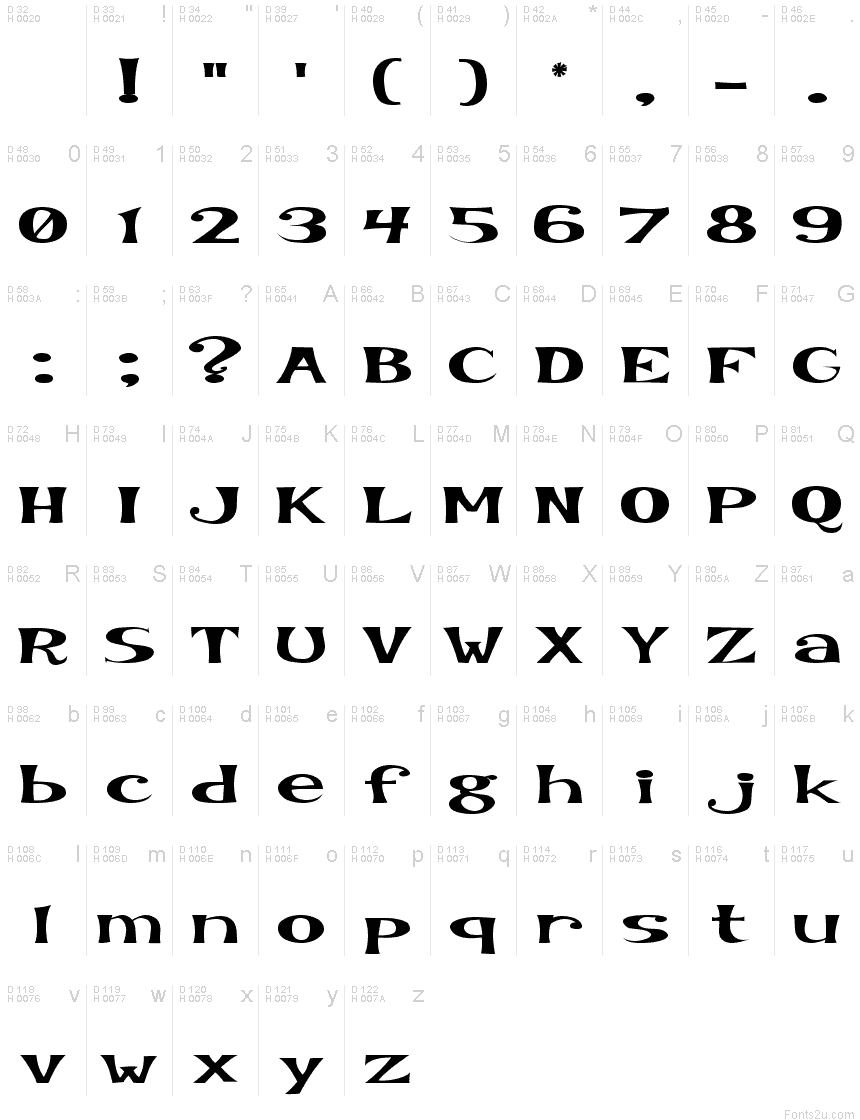
KookySquat
KookySquat font by Financial Peril Publishing & Design is a free comic font with a wonderfully offbeat swagger. Tall, flared strokes lean and stretch as if they’re mid-stride, while chunky curves keep everything playful and approachable. The letters feel hand-drawn yet crisp, with a subtle theatrical flair that makes even a single word look like a title card.
Using KookySquat, headlines snap to attention on posters, kids’ book covers, party invitations, zines, comic panels, and quirky product packaging. The energetic rhythm and exaggerated shapes hold up well at large sizes, where every curve can breathe. This free font pairs nicely with a clean geometric sans for body text-set KookySquat big and bold on top, then let the simpler typeface handle the fine print.